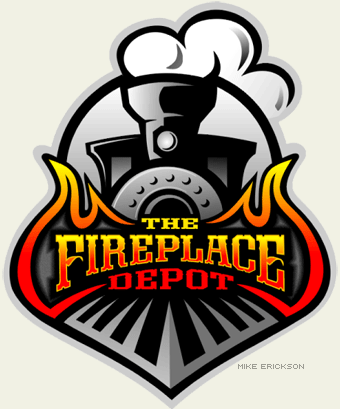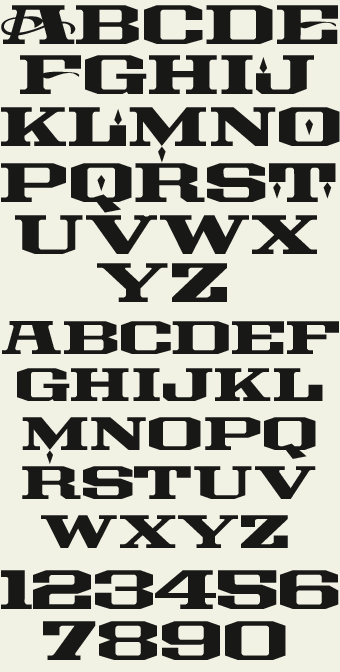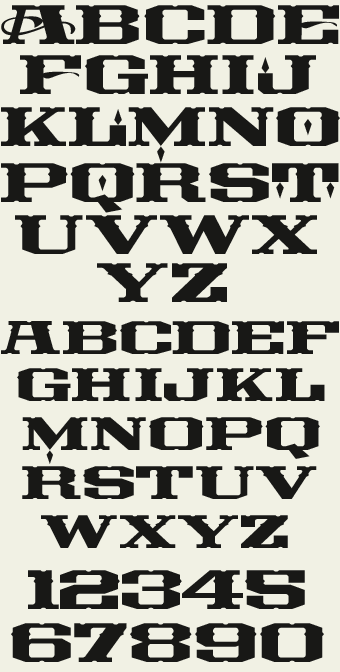
| LHF Timberlodgeby Chuck Davis |
Extended western set includes two fonts: Regular (without spurs and notches) and Spurs (with spurs and notches). Decorative caps in both fonts.
Timberlodge Regular
Timberlodge Spurs